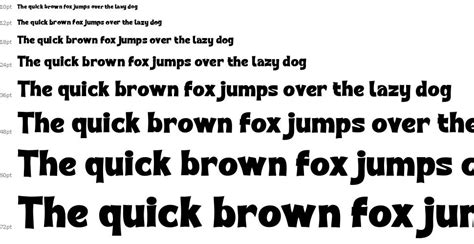
Hey design enthusiasts! Are you on the hunt for a bold and impactful font that can make your projects stand out? Well, look no further, because today we’re diving deep into the world of the iBullpen Heavy font , and guess what? You can snag it for a free download! Yeah, you heard that right. We’re talking about a font that brings serious personality and weight to any design, whether you’re crafting a killer poster, a striking logo, or an eye-catching social media graphic. So, buckle up, guys, because we’re about to explore why this particular typeface is a must-have in your design arsenal and how you can get your hands on it without spending a dime.
Why iBullpen Heavy is a Designer’s Dream
Let’s be real, finding the perfect font can sometimes feel like searching for a needle in a haystack. You need something that’s not only aesthetically pleasing but also versatile and legible. The iBullpen Heavy font ticks all those boxes and then some. Its defining characteristic is its incredible heft . This isn’t just a regular bold font; it’s a heavyweight champion. The thick strokes and solid structure give it an undeniable presence, making it perfect for headlines, titles, and any text that needs to command attention. Think of it as the font equivalent of a powerful statement – it doesn’t whisper; it roars.
But don’t let its boldness fool you into thinking it’s clunky or unrefined. The iBullpen Heavy font boasts surprisingly clean lines and a well-balanced form. This means it maintains legibility even at smaller sizes, although its true magic truly shines when it’s given space to breathe in larger applications. It’s the kind of font that designers often refer to when they need something with a bit of a rugged, industrial, or even a vintage vibe, but it’s versatile enough to adapt to more modern and minimalist aesthetics too. Imagine using it for a craft brewery logo, a band poster for a rock concert, or even for the title of a powerful documentary. The possibilities are genuinely endless, and that’s what makes a font like this so valuable in your toolkit.
Furthermore, the iBullpen Heavy font often comes with a character set that includes essential punctuation and a decent range of language support, which is crucial for global design projects. Always check the specific license and character set when you download any font, but generally, fonts like this are designed with practical application in mind. Its unique style can add a distinctive flair that differentiates your work from the crowd. Instead of settling for generic sans-serifs or overused serifs, opting for something with character like iBullpen Heavy shows you’ve put thought and effort into your typography choices. It communicates confidence and a strong visual identity, which are paramount in effective design.
Unleash Your Creativity with iBullpen Heavy
Now that you know how to get your hands on the iBullpen Heavy font , the real fun begins: using it! This typeface is an absolute powerhouse when it comes to making a statement, and its versatility means you can apply it across a surprisingly broad spectrum of design projects. Whether you’re a seasoned pro or just starting out in the design world, incorporating a font like iBullpen Heavy can instantly elevate your work and give it a distinct edge. Let’s explore some killer ways you can unleash your creativity with this robust font.